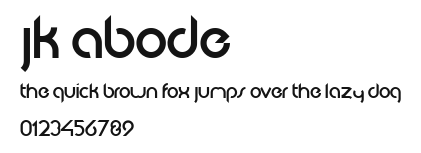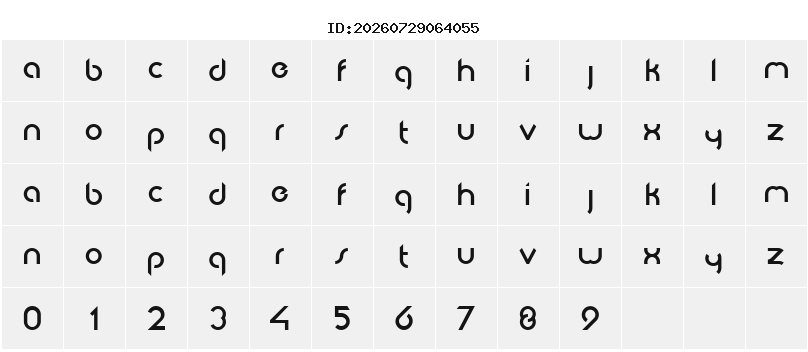
• Font Name: JK Abode
• Designer: Jacob King
About JK Abode.ttf
JK Abode.ttf is a modern, elegant sans-serif font designed for ultimate readability and visual harmony. Perfect for branding, headlines, web design, and print materials.